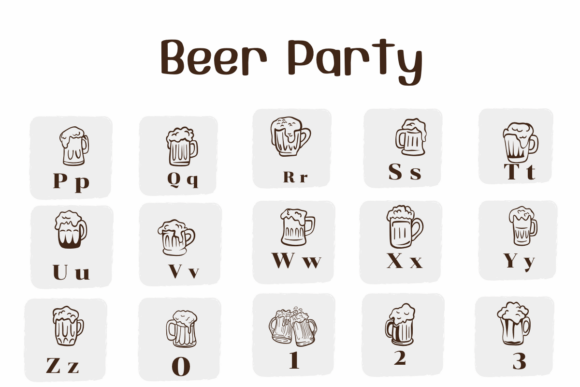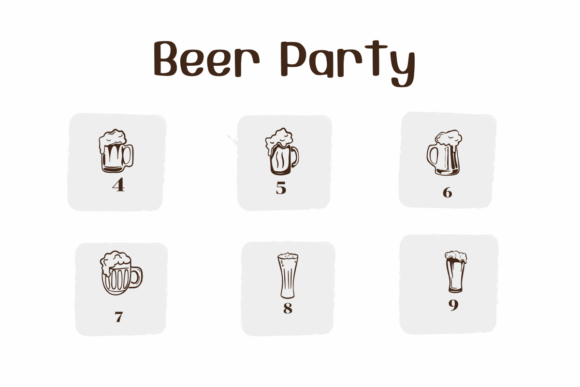
Beer Party Font
Beer Party is a fun dingbat font featuring playful designs of beer glasses. Each character turns into a unique beer-themed symbol, perfect for party invitations, bar menus, or anything festive.